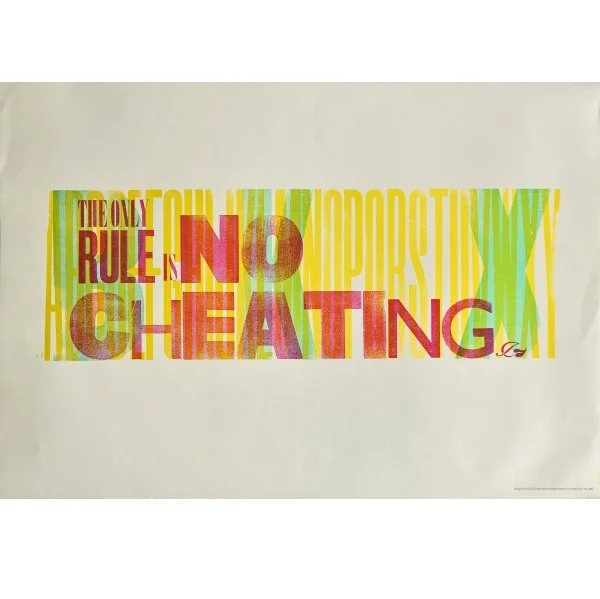
'The Only Rule is No Cheating' by Hand & Eye Press
This fine art print was designed and hand printed at Hand & Eye Press in letterpress, using large wood block overlapping letters. An elongated alphabet is printed in the back ground in yellow.